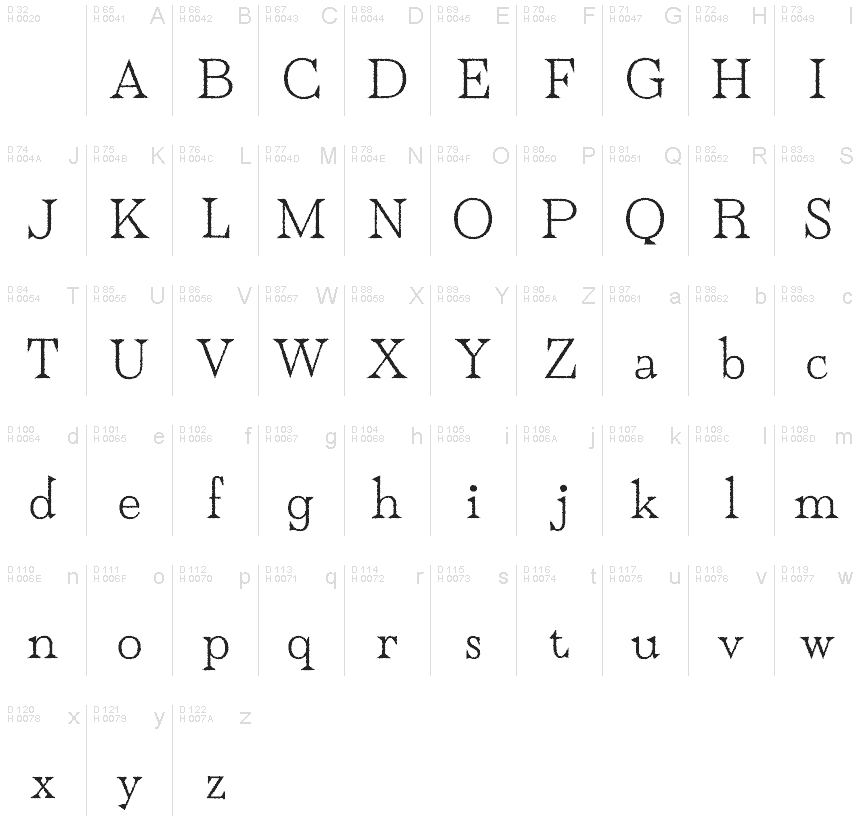
Rivania Rough Demo Regular
Rivania Rough font by Craft Supply Co. is a display typeface with an eroded serif style. The font has a vintage, nostalgic look with textured details and artistic vibes that make each character stand out. It is best described as a special grunge-style typeface for artists looking forward to creating unique apocalyptic designs.